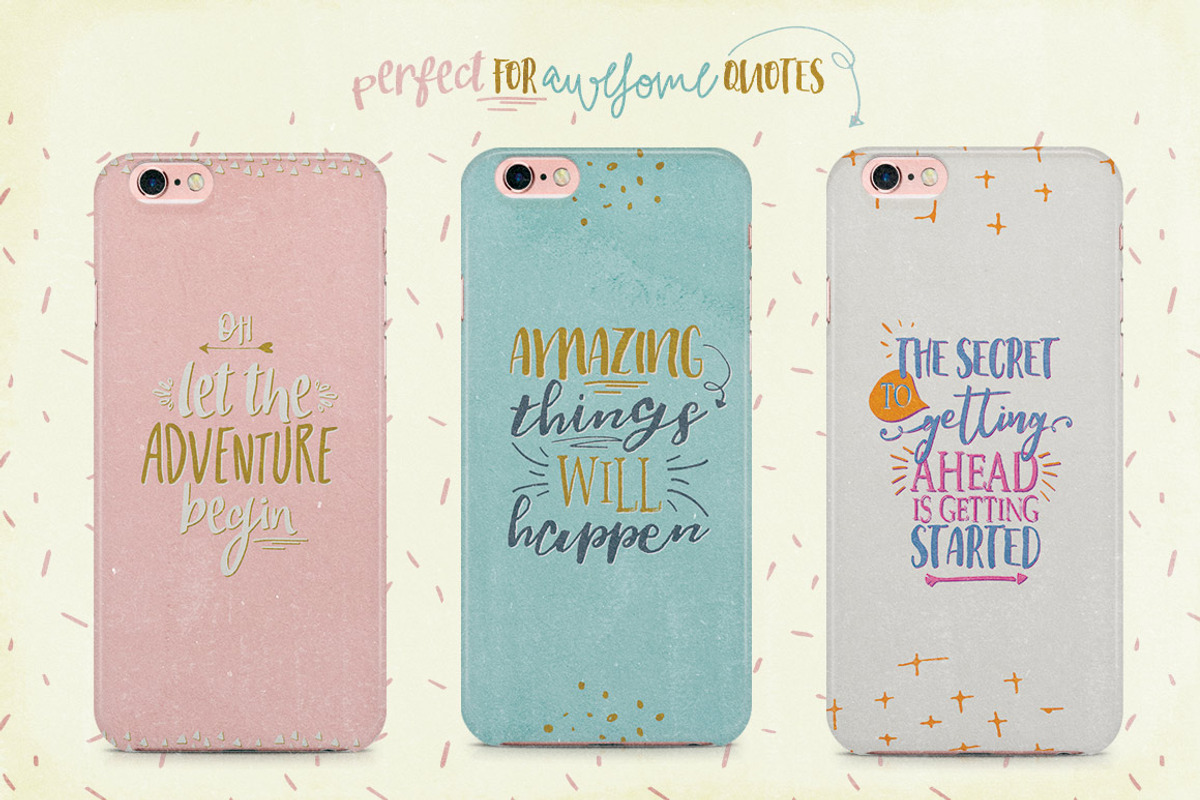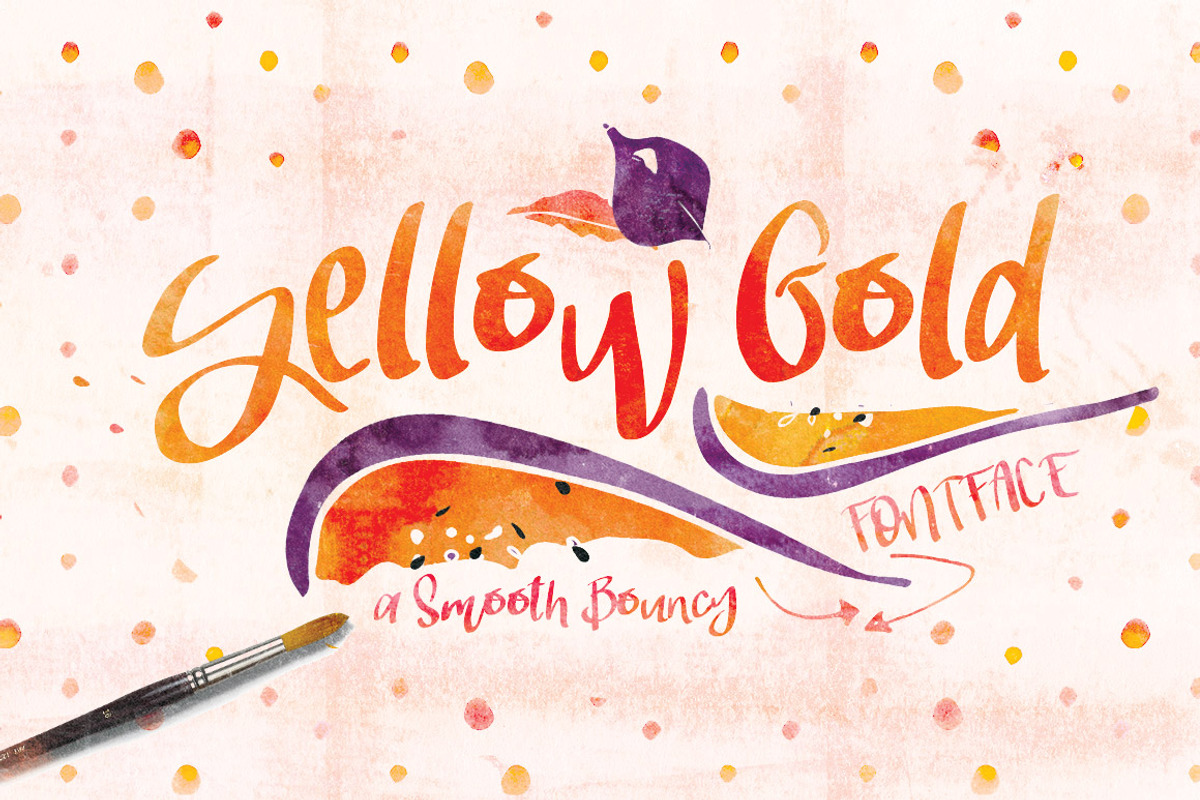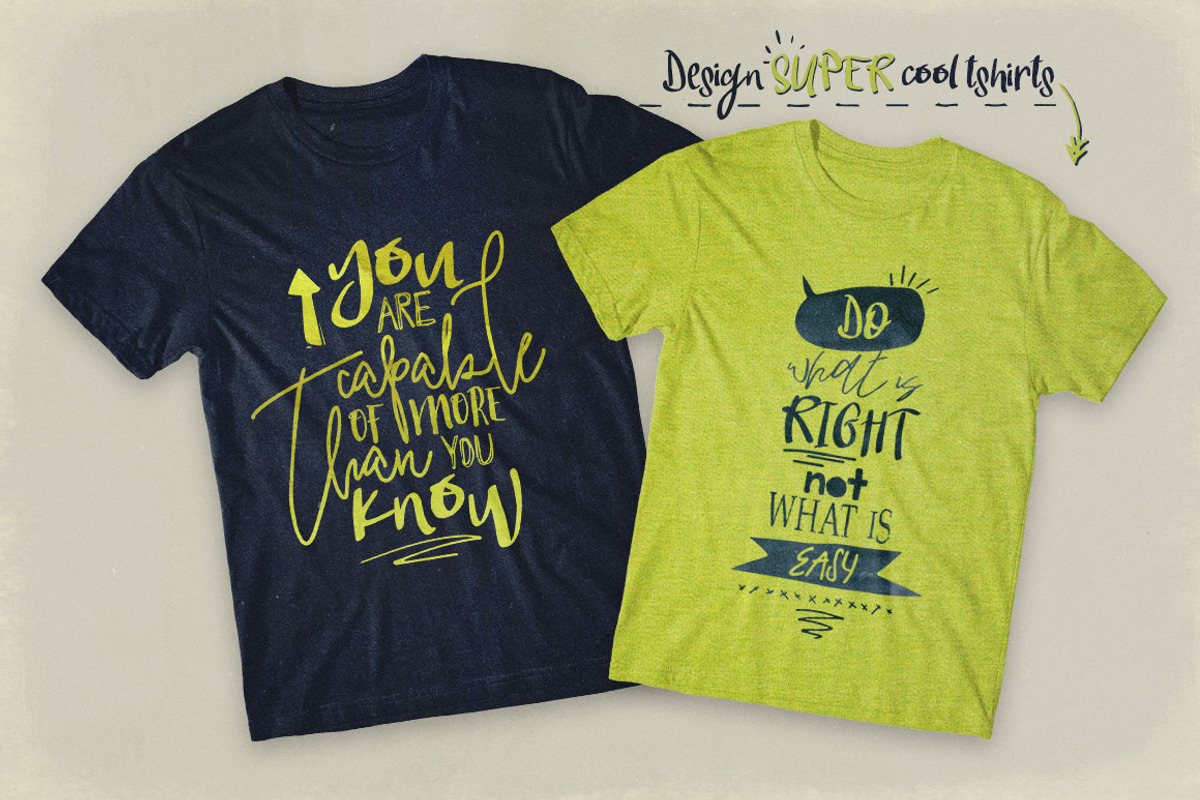
Yellow Gold Font Typeface
Yellow Gold Font Typeface by Creativeqube Design is a font selected for branding, posters, packaging, typography.
Why Yellow Gold Font Typeface is worth a look
Yellow Gold Font Typeface by Creativeqube Design fits naturally into Branding, posters, packaging, typography.